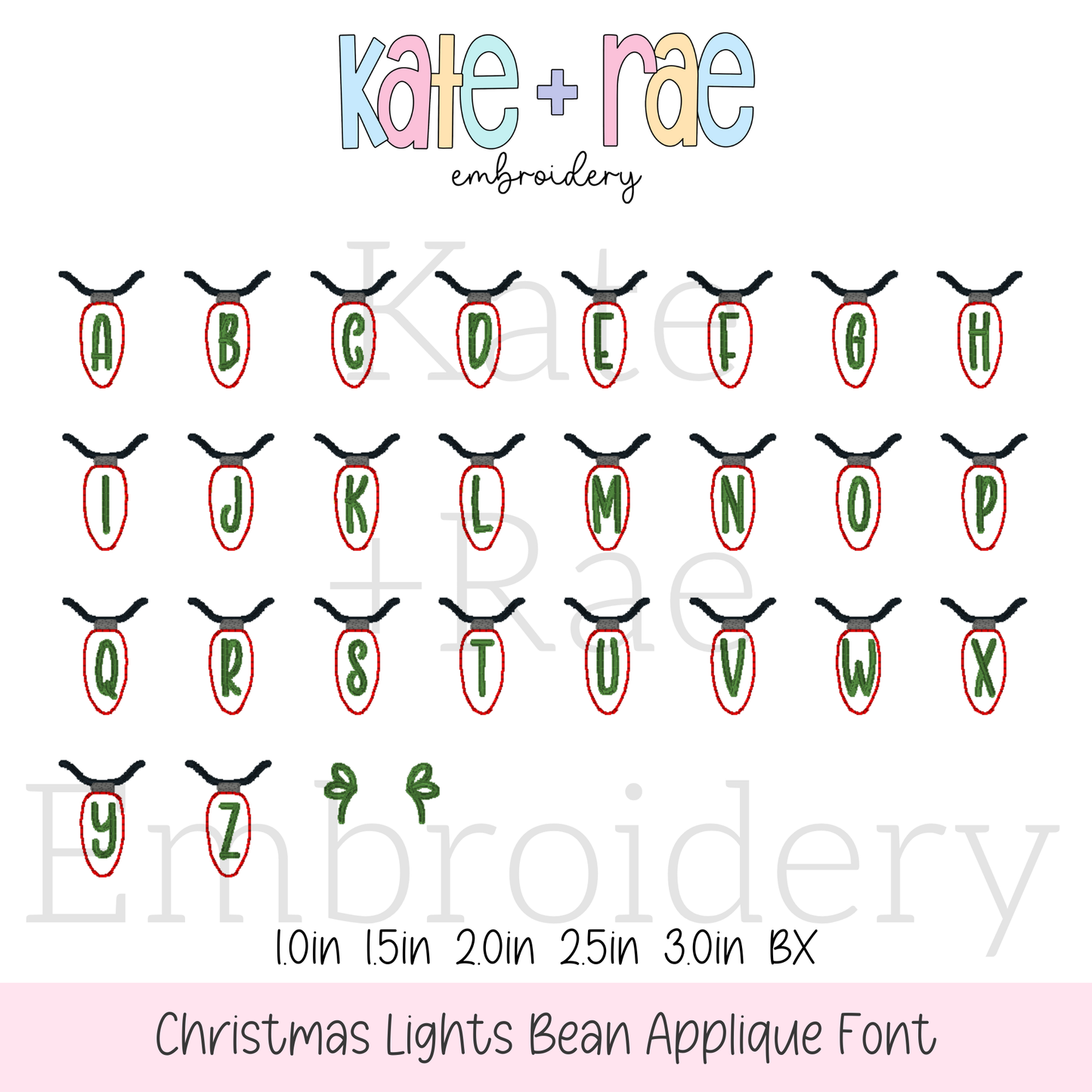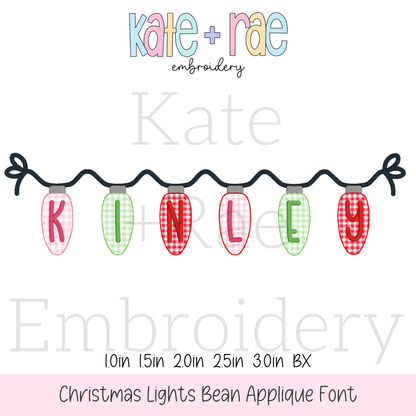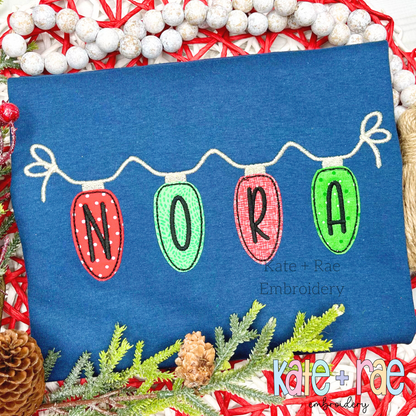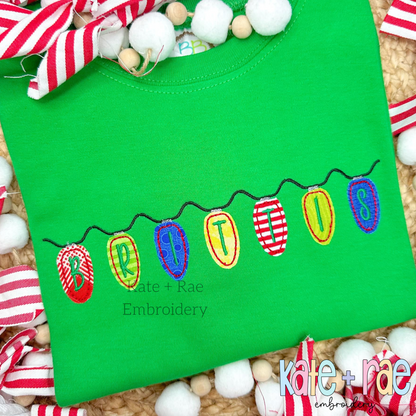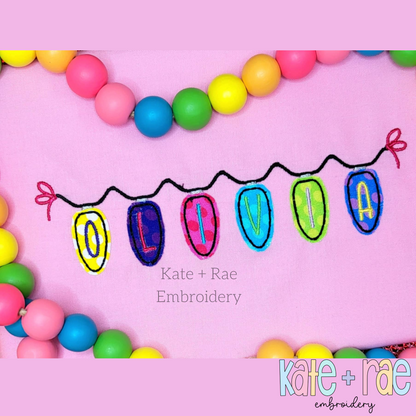
Christmas Lights Bean Stitch Applique Embroidery Font
Light up the holidays with the Christmas Lights bean stitch applique font! Spell out Christmas names on holiday shirts and festive stockings.